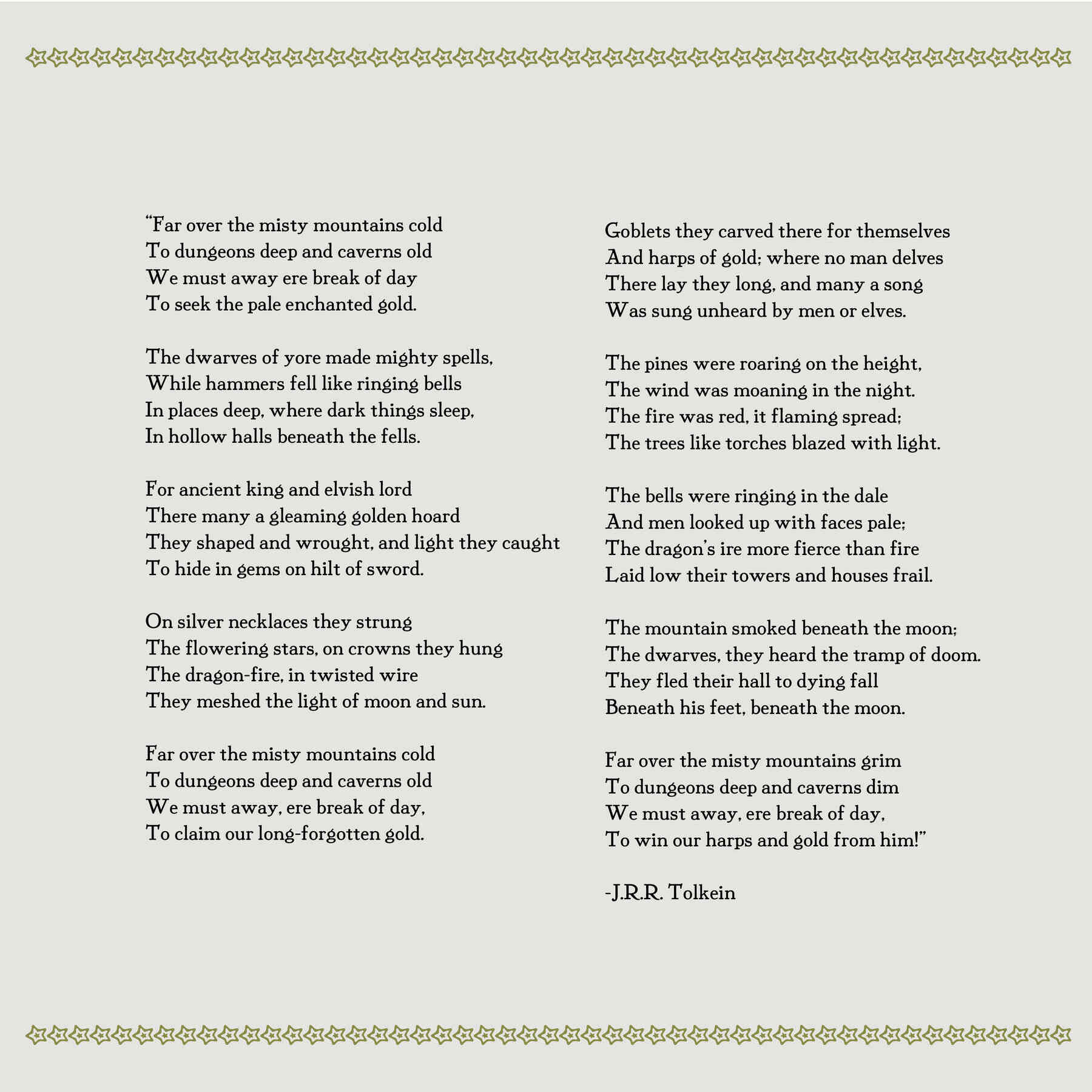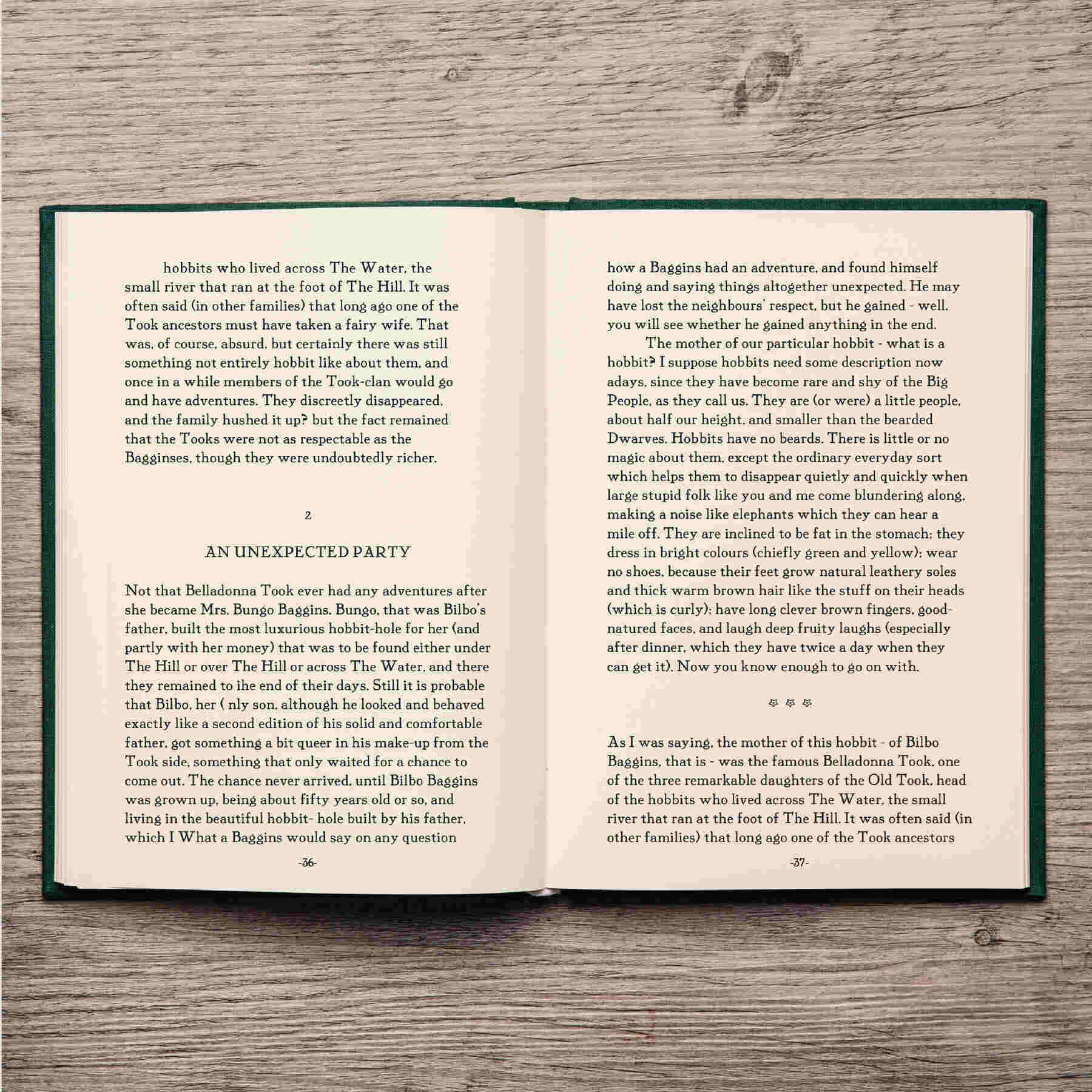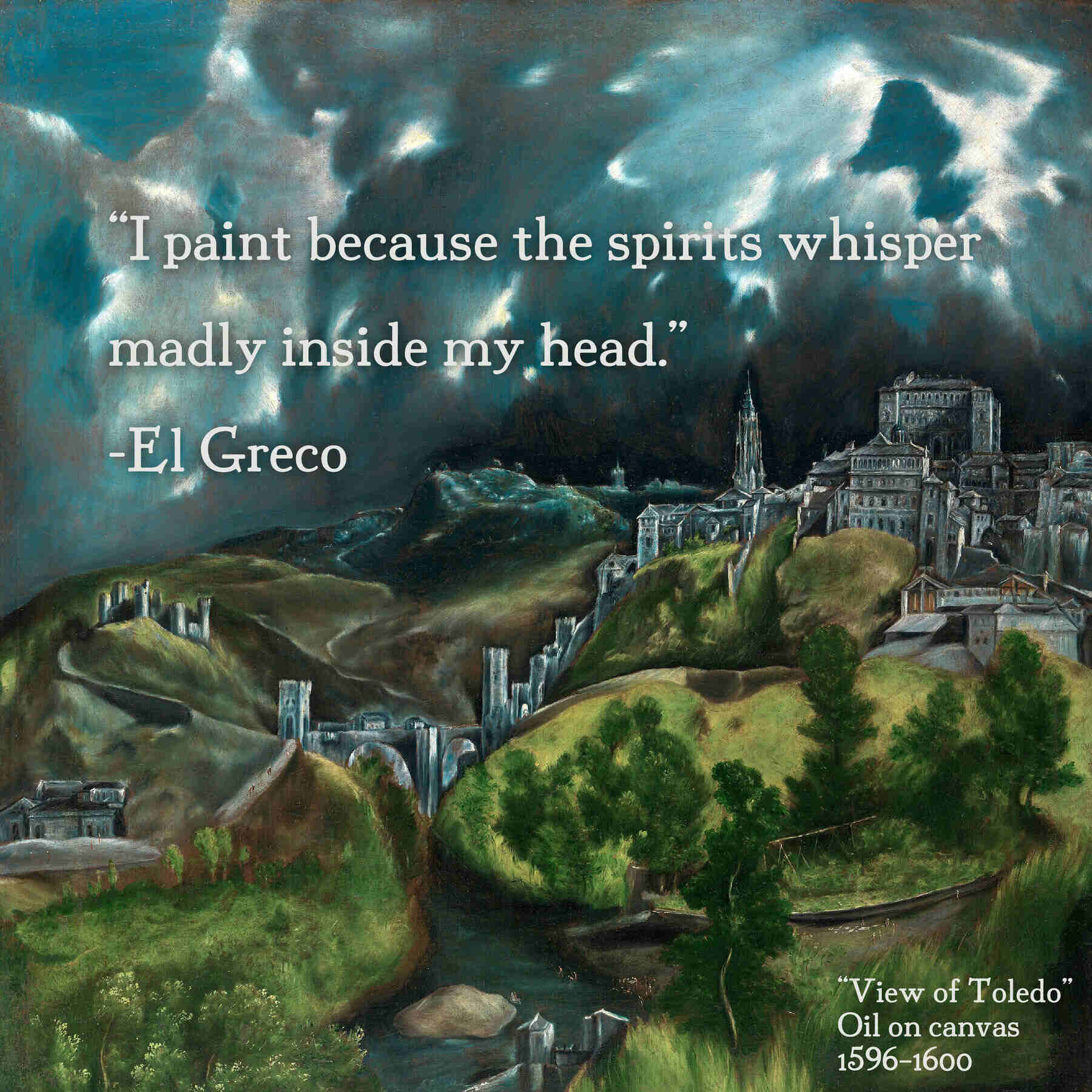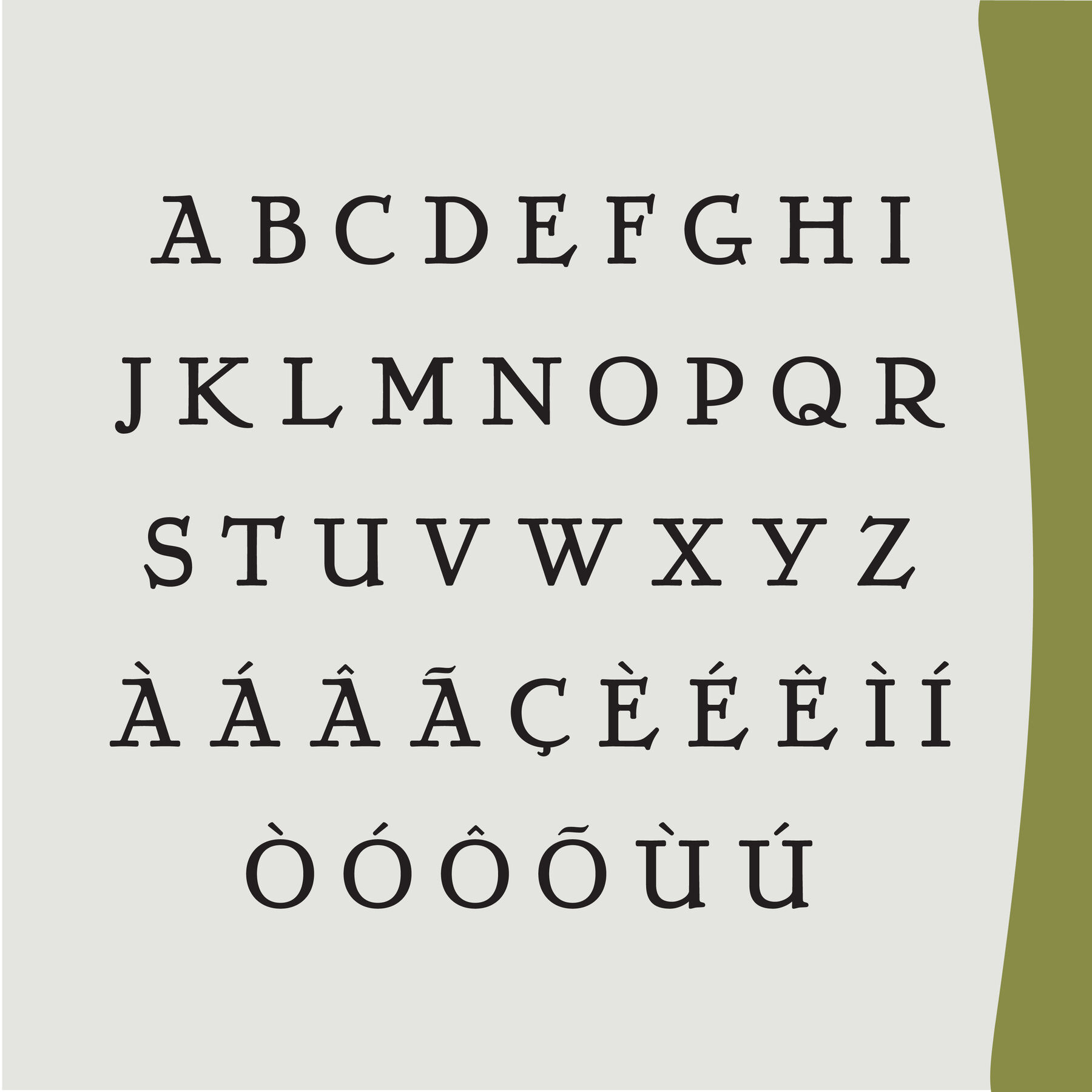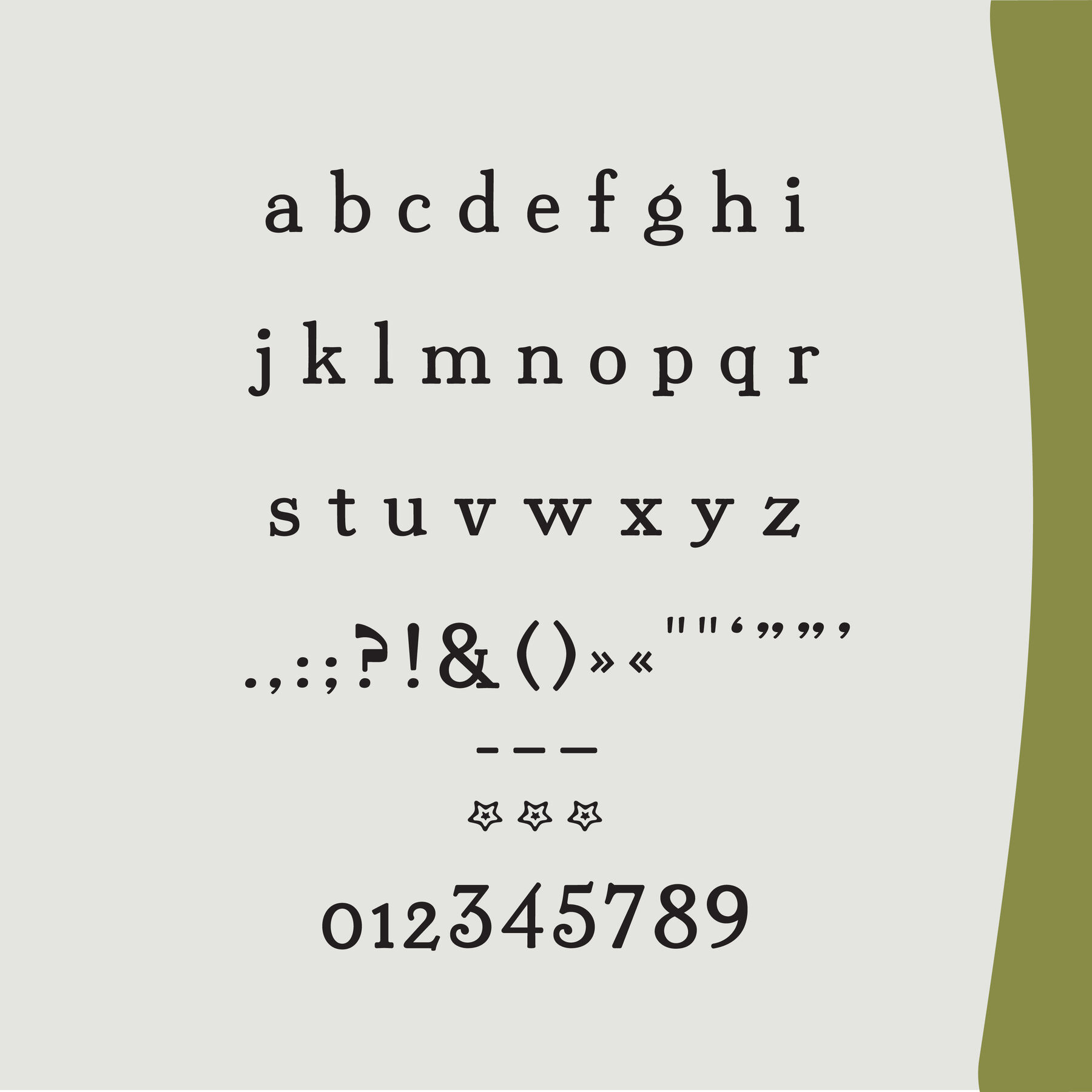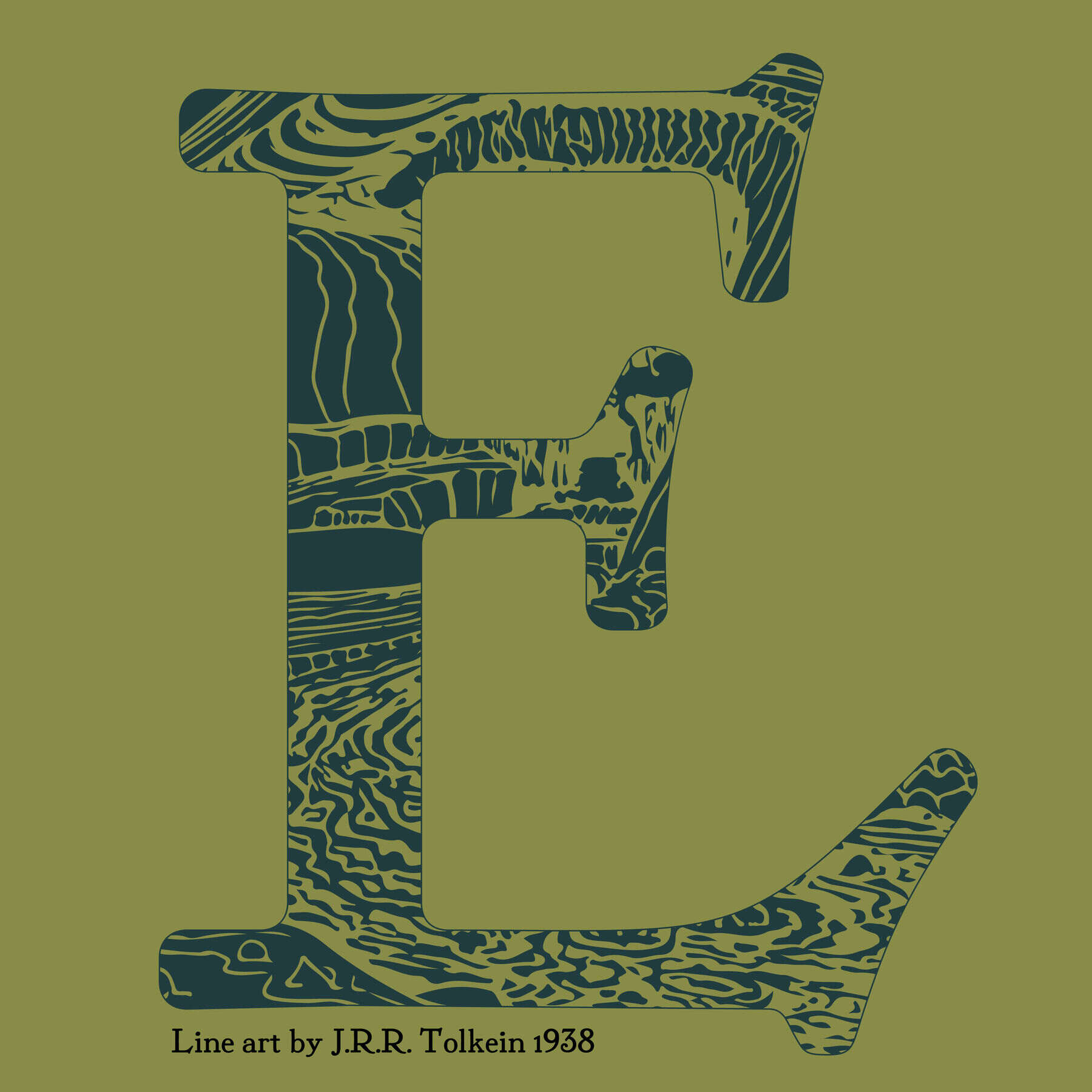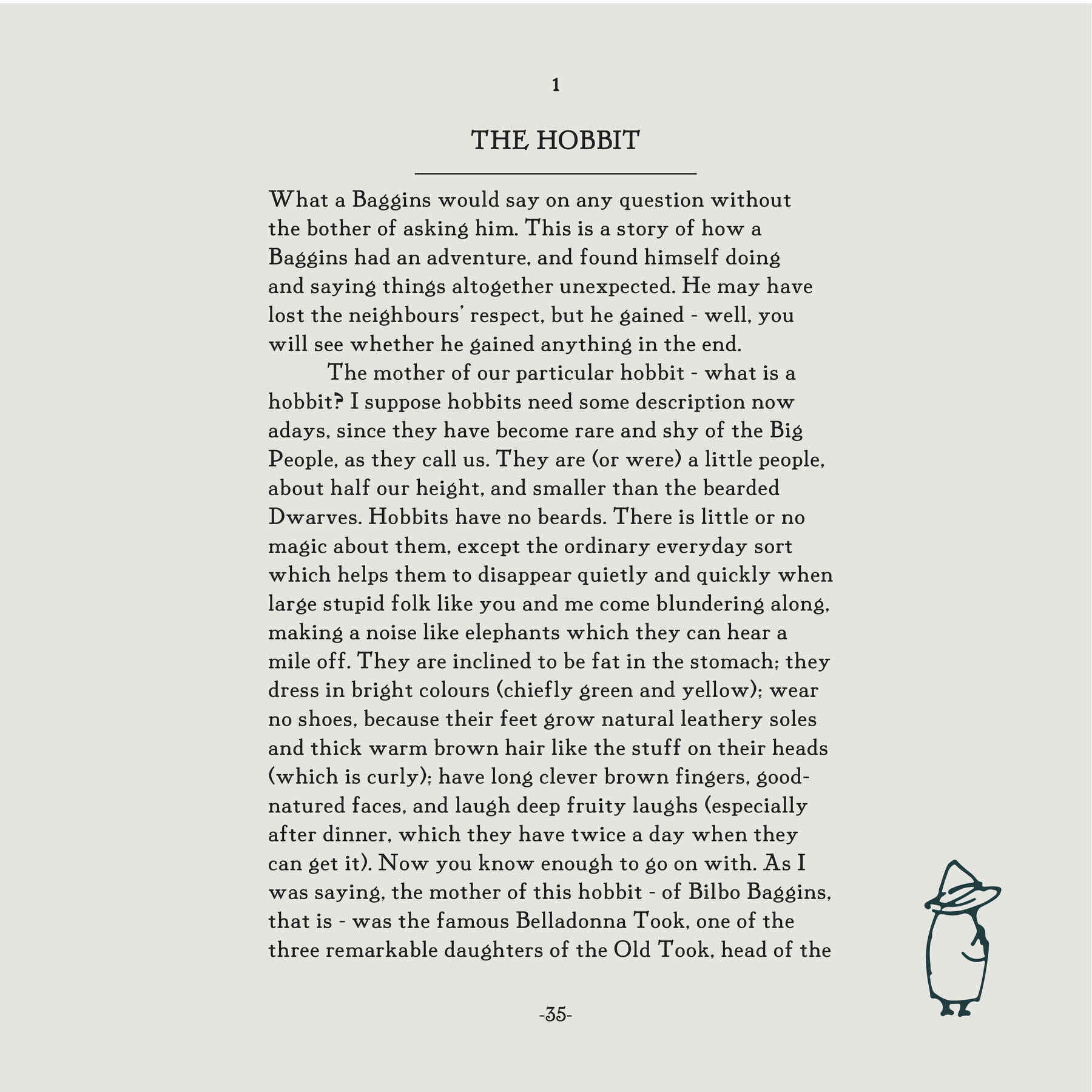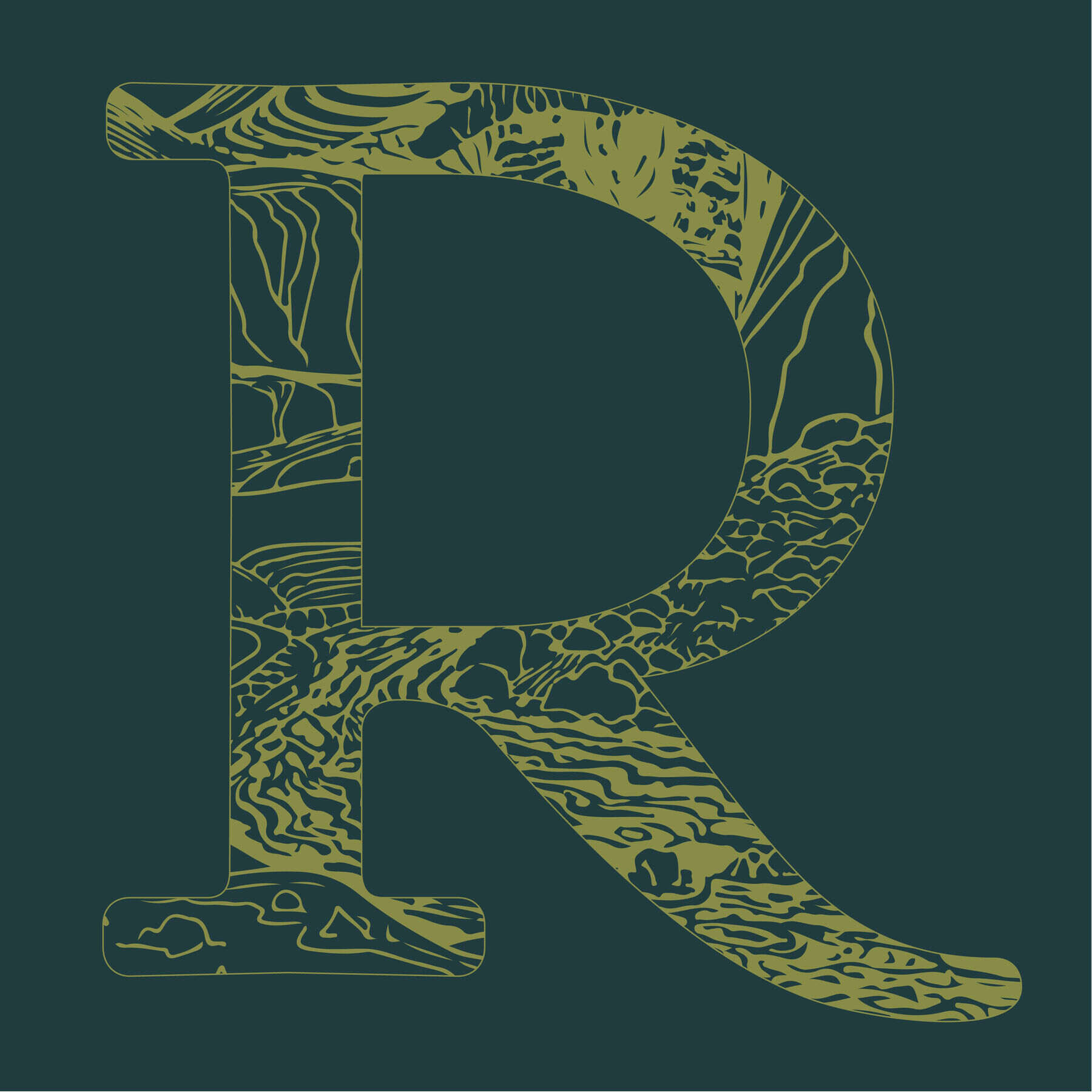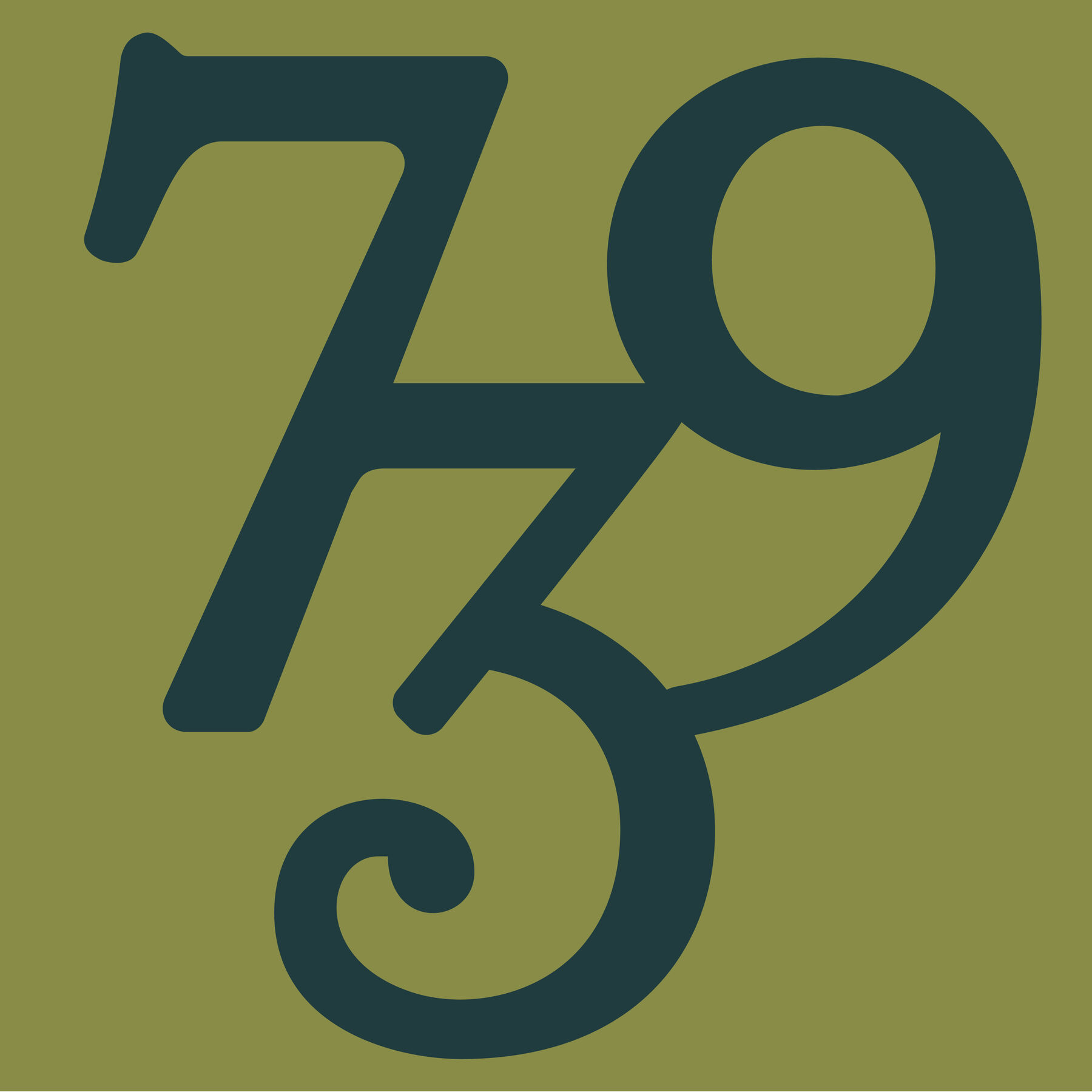
El Greco
Rachel Ross
El Greco was a typeface designed by the Richard Gans Foundry operating from 1888-1975. The font was named after Greek
painter, sculptor, and architect, El Greco (Dominikos Theotokopoulos, 1541-1614). El Greco immigrated to Toledo, Spain
in 1577. He is one of the most well-known artists of the Spanish Renaissance due to his fantastic use of color and
distorted compositions. When looking at El Greco’s paintings next to the typeface, they pair well together. Both display
skill in their craft as well as embracing imperfection and slight distortion.
While developing the revival, I couldn’t help but think that it also embodies the spirit of a Hobbit. It’s short,
friendly, and has wide feet, or in this case, serifs. As Tolkein describes, “They dress in bright colours, favouring
yellow and green. They are usually shy but are nevertheless capable of great courage and amazing feats under the proper
circumstances.”